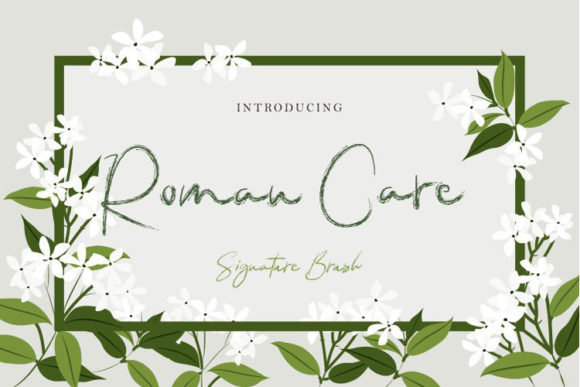
Introducing the captivating Roman Care Font, an exquisitely designed script font family by ed.creative. This font is an artistic marvel, a harmonious blend of classic calligraphy and modern elegance. Roman Care will elevate your designs to new heights, transforming them into stunning masterpieces.
Unleash your creativity and embark on a journey of artistic expression with Roman Care. Its bold and charismatic strokes command attention, leaving an unforgettable impression on your audience. Whether it's a wedding invitation, a heartfelt letter, or a stunning logo, Roman Care adds a touch of sophistication and charm to every project.
Express your emotions with the flowing lines of Roman Care. This font is a symphony of curves and flourishes, evoking a sense of timeless allure. Let the ink flow effortlessly, capturing the essence of your innermost thoughts and feelings. Each letter is a work of art, a testament to the beauty of written language.
Imagine your designs adorned with the elegance of Roman Care. Your website will radiate a sense of professionalism and trustworthiness, leaving a lasting impression on your visitors. Your social media posts will captivate audiences with their eye-catching visuals, making your brand stand out from the crowd.
With Roman Care, you hold the key to unlocking a world of creative possibilities. Its versatility knows no bounds, extending from formal invitations to playful greeting cards. Create unique and memorable branding materials that reflect your brand's personality. Explore the endless possibilities and let your imagination run wild.